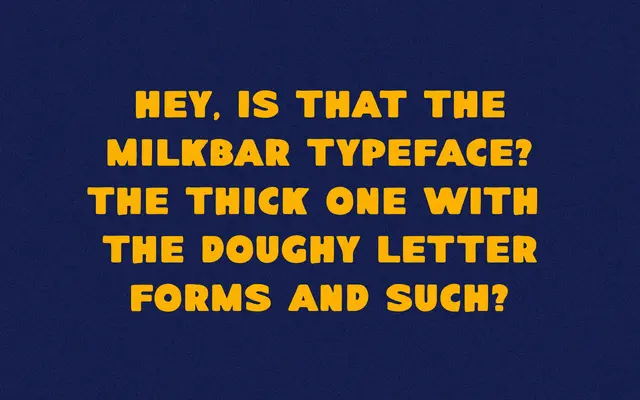
Milkbar
A single-weight, heavy display sans with a playful, chunky character aimed at branding, packaging and editorial work.
Released by Taylor Penton, Milkbar is a bold, wide display sans built for headlines and logo work where personality is the point. It ships as a single Regular weight with 151 glyphs covering Western European Latin, including Icelandic and Welsh. A late 2025 update extended the character set with broader language support and additional punctuation.
Described by the designer as a 'fat ass sans', Milkbar is a heavy, expressive display sans intended for impact rather than extended text use, fitting the display category.